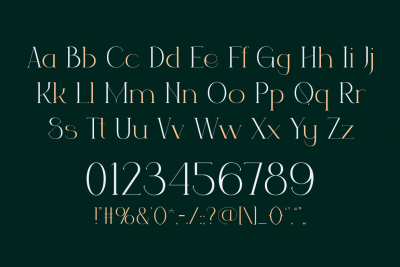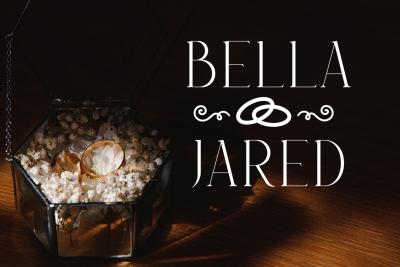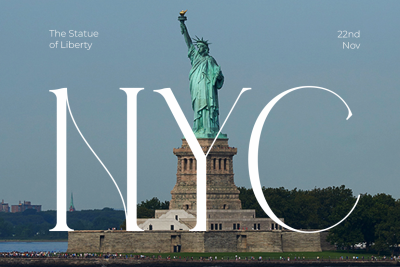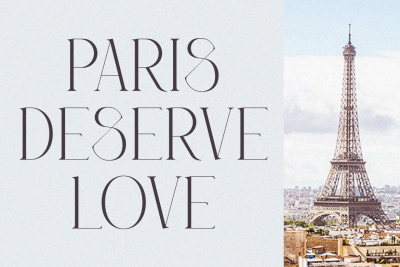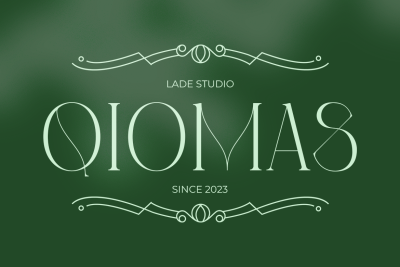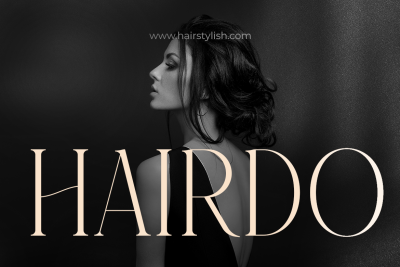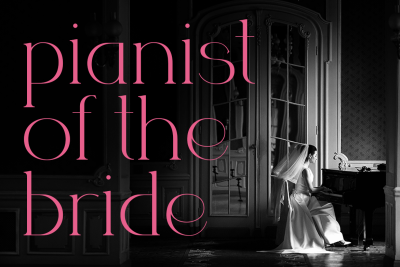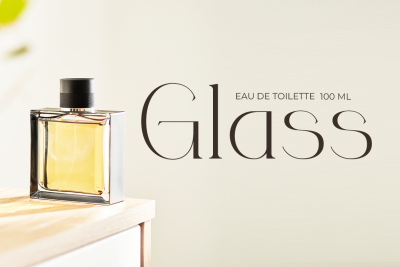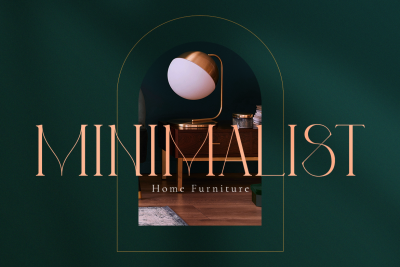
Instagram Font CATWALKZ is a modern and sophisticated serif font. It exudes elegance and luxury with its sharp lines and refined curves. Therefore, it is ideal for premium branding and high-fashion projects. The fontโs minimalist style and sleek letterforms bring a contemporary touch to classic serif fonts. Additionally, CATWALKZ strikes a balance between boldness and subtlety, ensuring your designs stand out with a polished look.
Moreover, the font is highly versatile, making it suitable for various creative projects. It works well in digital media, print, and advertising campaigns. Furthermore, its high legibility and exquisite details ensure it looks great in all sizes. From large banners to small captions, CATWALKZ delivers consistent quality. By blending classic serif elements with a modern edge, it adapts to different design contexts. As a result, it offers a luxurious and timeless aesthetic for any project.
One of the unique features of CATWALKZ is its ability to maintain sophistication without overwhelming the viewer. Its clean lines and refined style make it an ideal choice for high-end branding and editorial layouts. Whether you’re working on a high-fashion campaign or designing a stylish wedding invitation, CATWALKZ elevates your work with ease. It provides a sense of prestige and exclusivity that will resonate with audiences looking for a premium, sophisticated experience.
Perfect For CATWALKZ is perfect for graphic designers, fashion brands, and creative professionals. It helps them craft an upscale image with ease. For instance, luxury fashion labels, jewelry designers, and beauty brands can use it for captivating logos, branding materials, or packaging designs. Digital creators on Instagram can also benefit. Specifically, it works well for story highlights, carousel posts, or advertisements.
This font is ideal for industries like fashion, art, and lifestyle, where elegance and sophistication are essential. Additionally, bloggers, event planners, and boutique owners can use CATWALKZ for wedding invitations or promotional materials. Editorial designers will also find it useful for magazine covers, headlines, and feature layouts. In short, its refined design resonates with audiences seeking premium aesthetics. Ultimately, CATWALKZ is perfect for anyone aiming to make a bold and stylish statement. It is the go-to font for professionals seeking to elevate their branding to new heights.